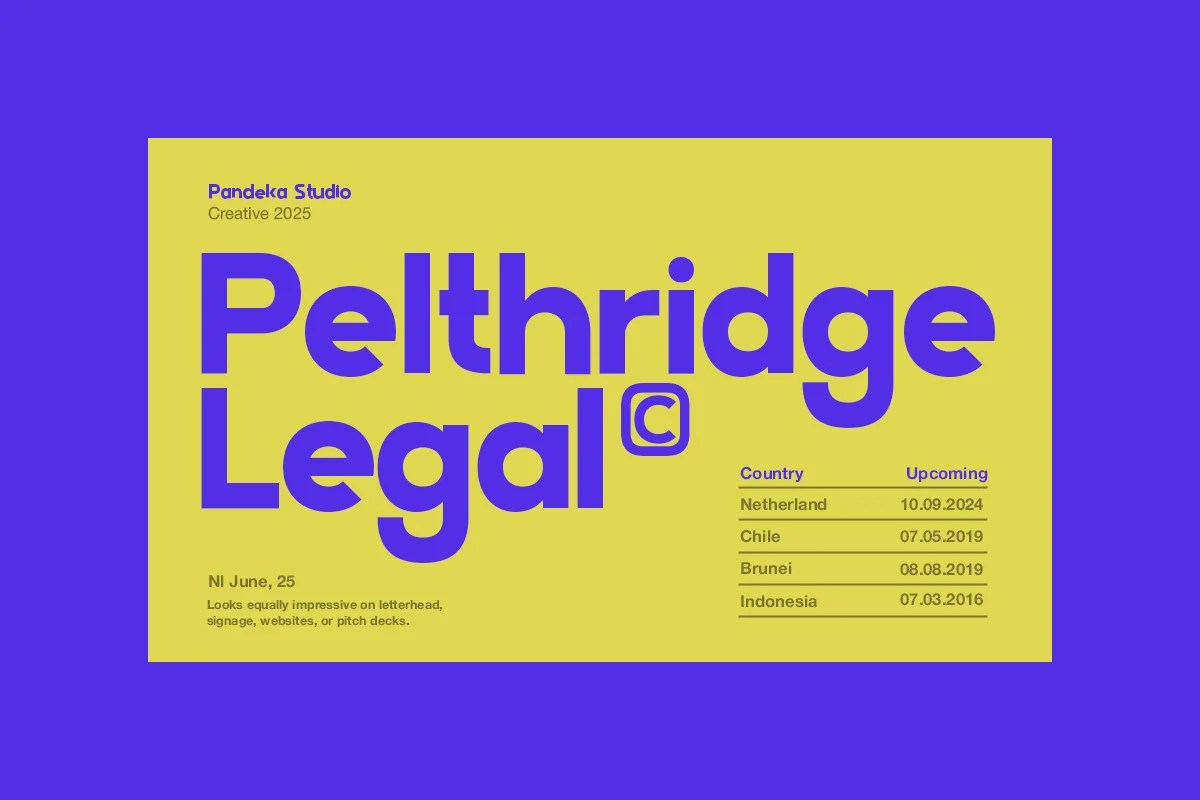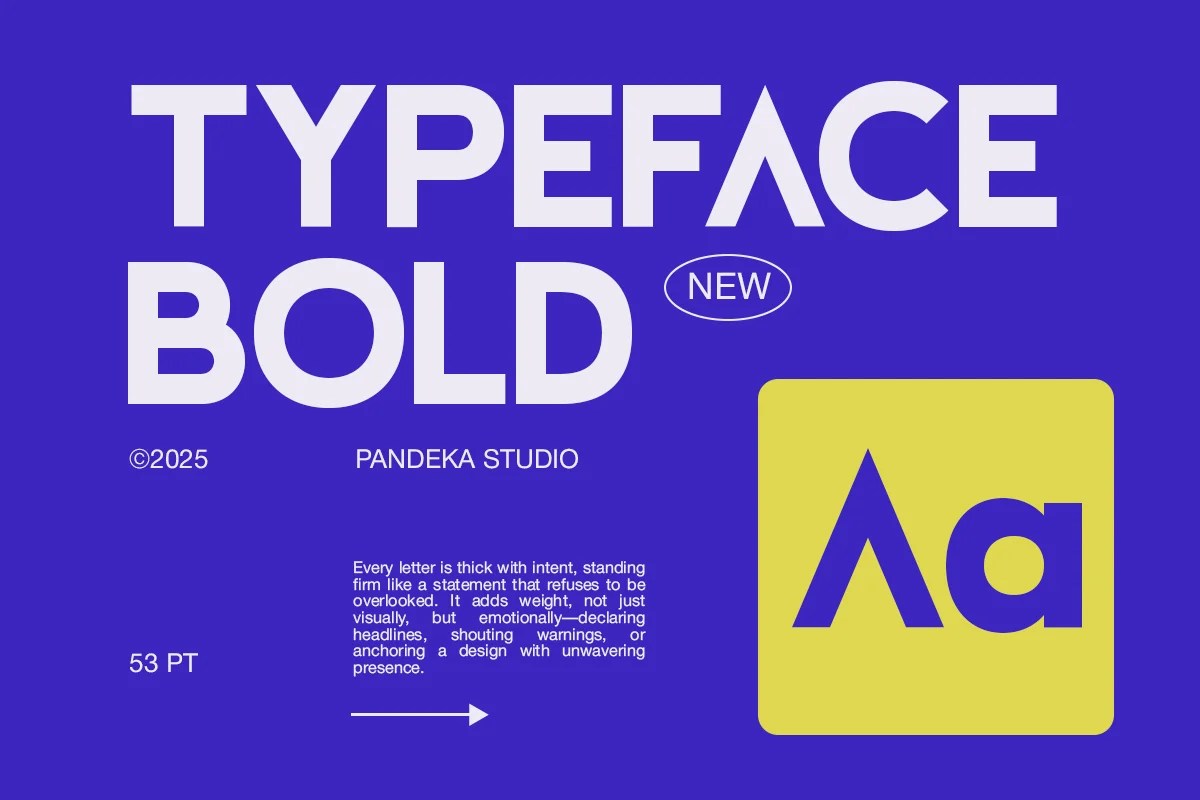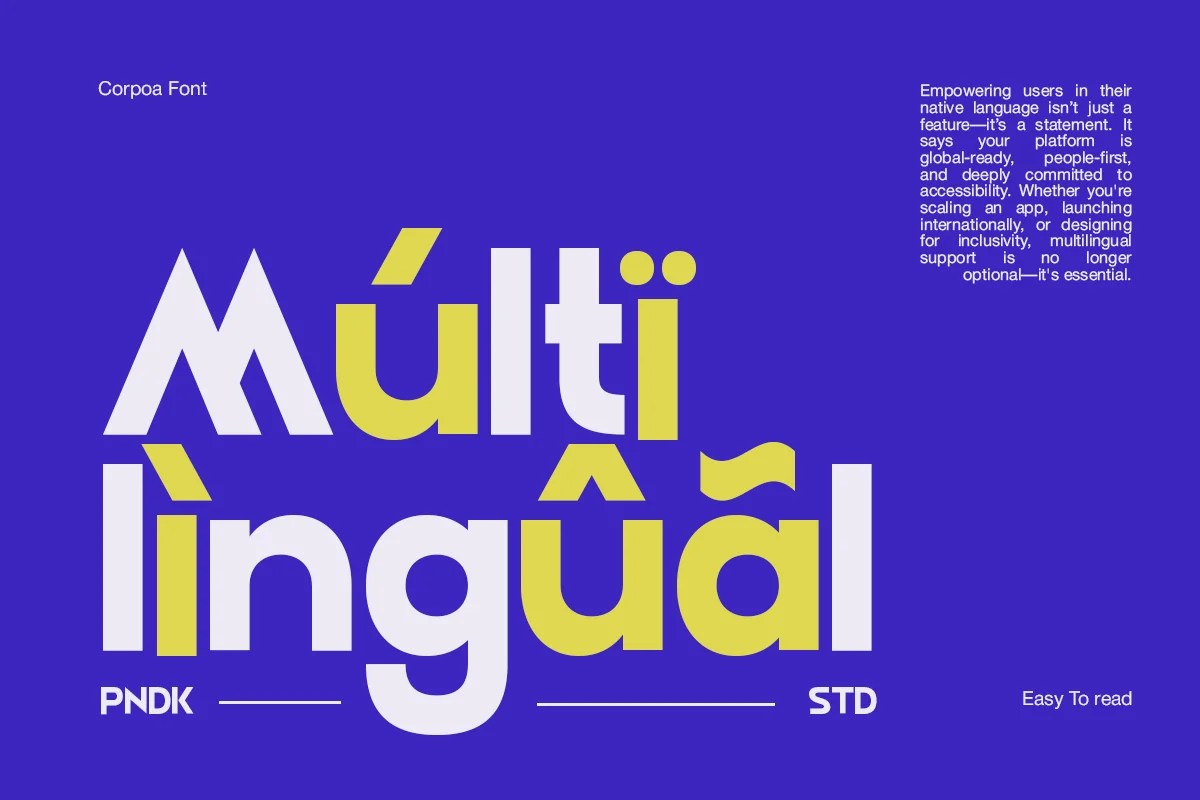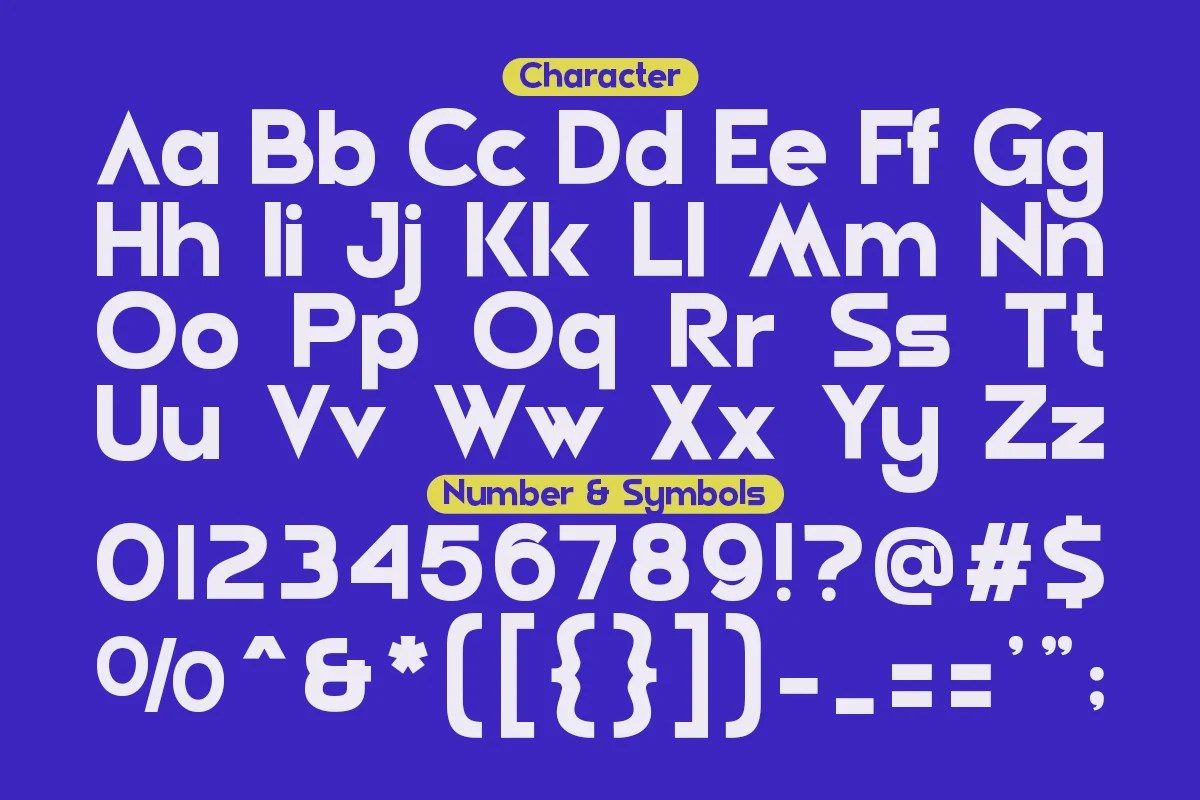
Corpoa by Pandeka Studio is a sleek and contemporary Sans Serif Font that embodies a minimalist and highly versatile design aesthetic. This modern typeface is perfect for a wide array of creative projects, including professional branding, clean web design, crisp headlines, and corporate communications. Its clear, unadorned letterforms ensure excellent readability and a sophisticated appeal, making your content stand out with precision and clarity.
This font is an ideal choice for designers, developers, and businesses looking for a fresh and adaptable typeface for their personal endeavors. Whether you’re crafting a modern logo, designing a user-friendly interface, or creating engaging marketing materials, Corpoa offers a polished and professional touch.
• Modern and minimalist sans-serif design
• Clear lines and excellent readability
• Ideal for branding, headlines, body text, and digital media
• Suitable for logos, websites, apps, and digital campaigns
• Minimalist and versatile appeal
• Great for personal projects and portfolio enhancements
• Designed for a contemporary and professional feel
Corpoa